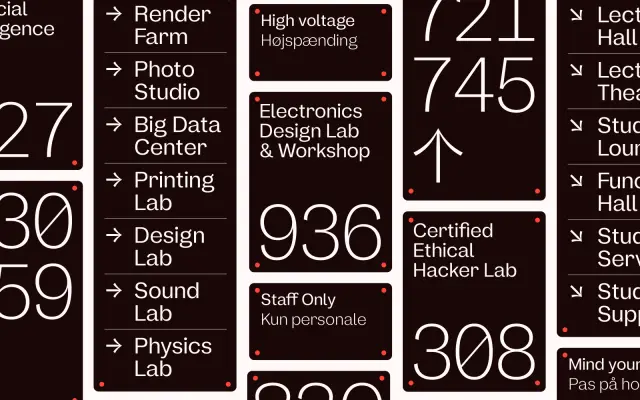
Nomina
A humanist sans-serif from Tokotype offering eight weights with matching italics and a variable font format for both upright and italic styles.
Nomina spans eight weights from ExtraLight to Black, each with a corresponding italic, and is also available as a variable font in both upright and italic variants. The character set covers Latin Extended and Latin Extended Additional, making it suitable for a broad range of Western European and Vietnamese languages. Its proportions and weight range suit it to editorial, signage and interface work where legibility across sizes is a priority.
The specimen text and proportions suggest a humanist sans-serif with open apertures and warm, readable letterforms suited to body text and editorial use. No explicit classification is given on the page, but the range of weights and variable format points to a contemporary humanist design.